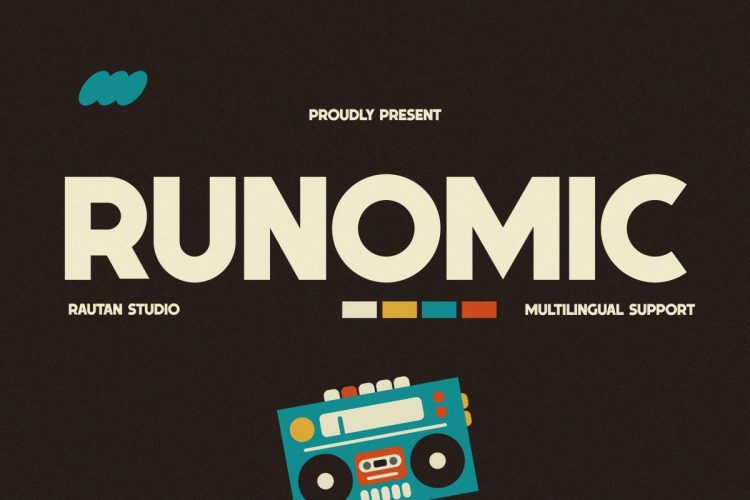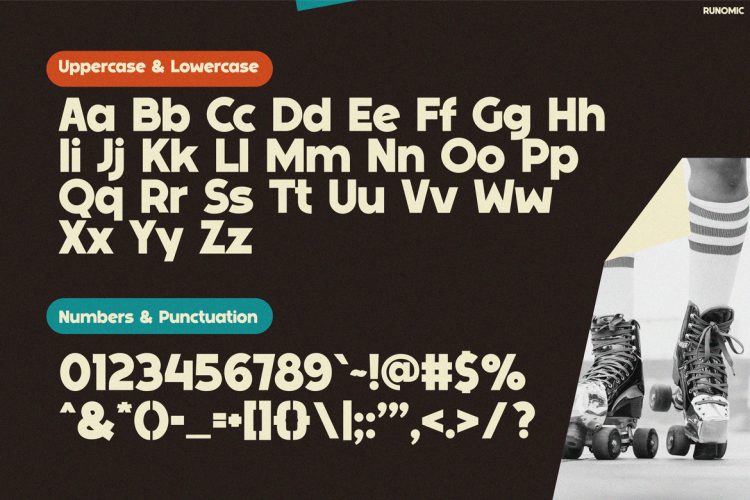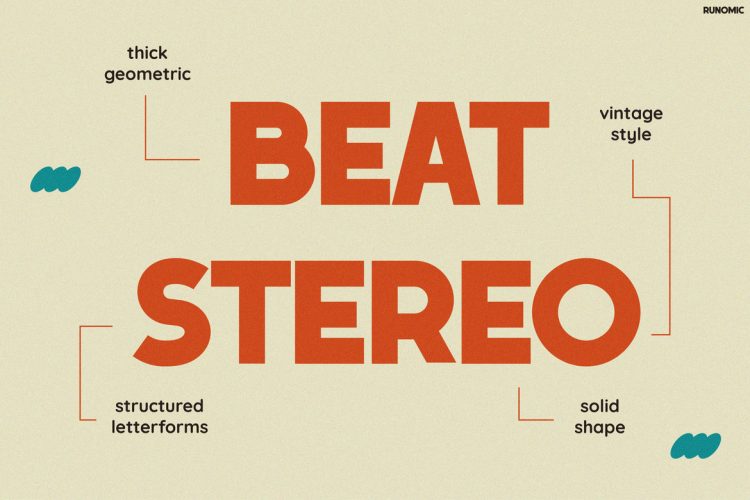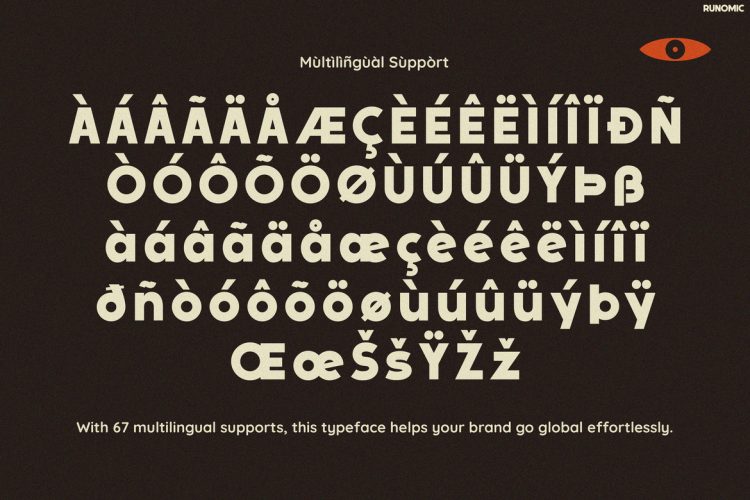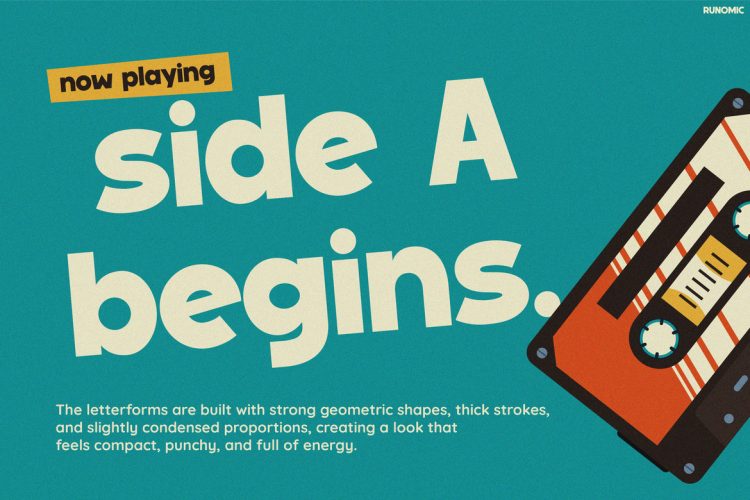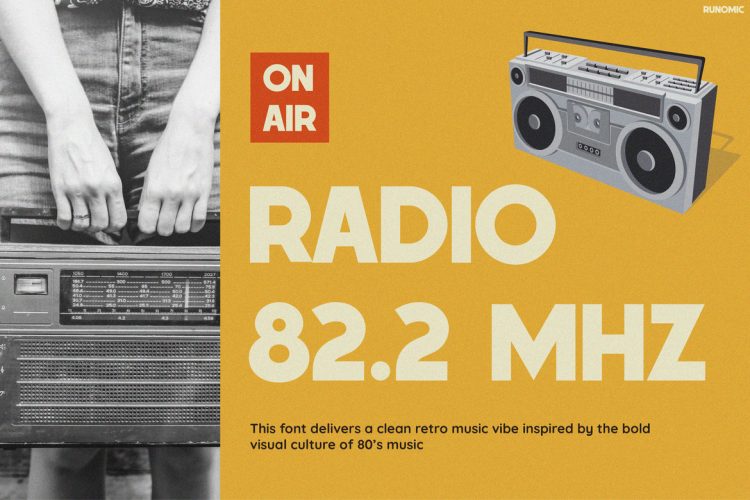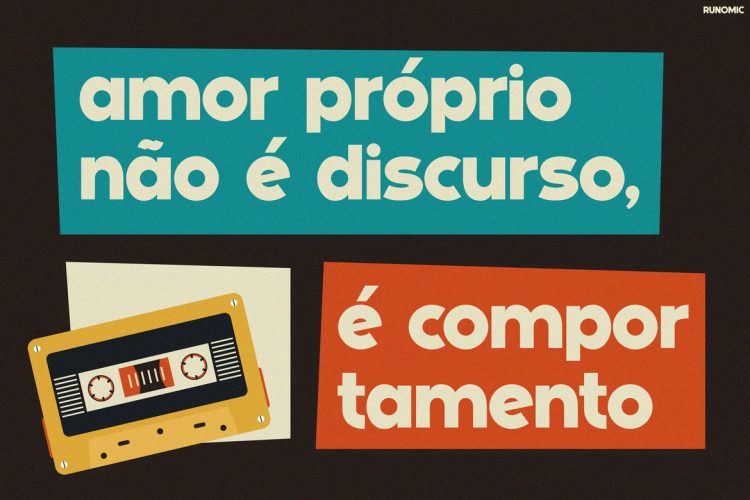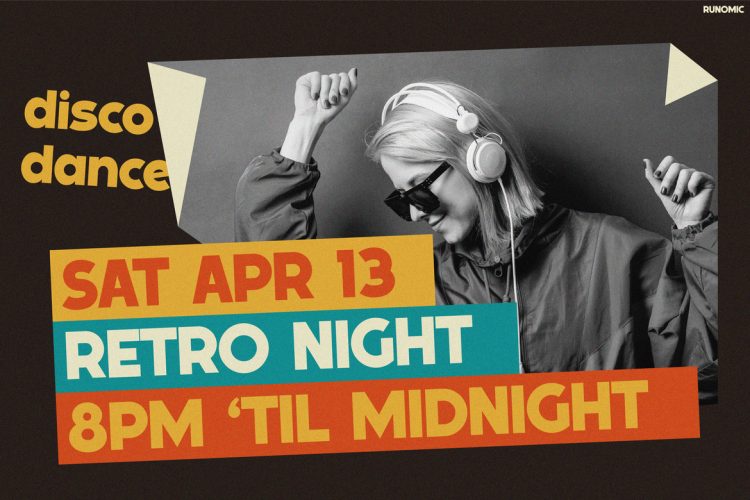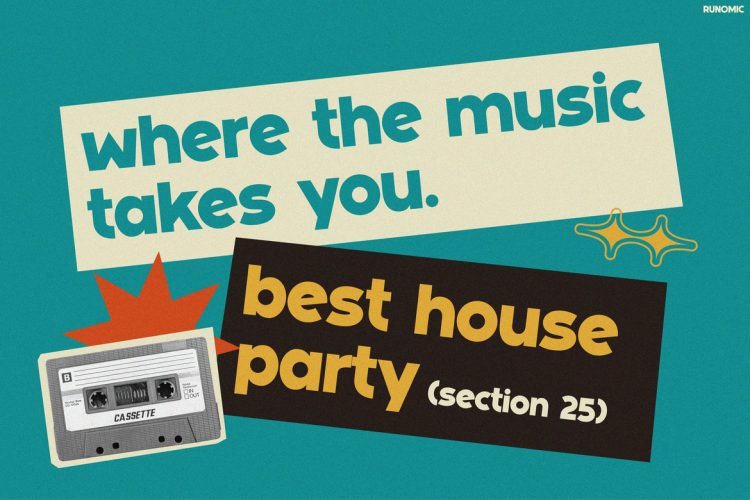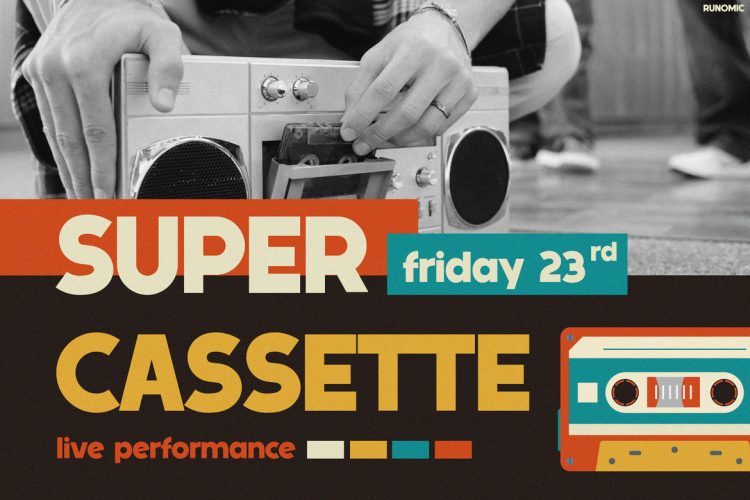
Runomic – Bold Retro Groove Font for Vintage Posters & Funky Headlines
Retro Font Runomic delivers bold retro energy with a playful vintage style. Inspired by cassette culture, disco posters, and classic radio graphics, this font instantly grabs attention. Moreover, its chunky shapes, smooth curves, and geometric structure create a strong visual impact. The bold style feels nostalgic yet modern. As a result, it becomes perfect for eye-catching typography. Runomic is designed to make headlines louder, warmer, and more memorable. In addition, it works beautifully for both print and digital projects. The font also supports 67 languages, allowing creators to reach global audiences with ease.
Why Retro Font Runomic Stands Out
Retro Font Runomic combines vintage charm with modern versatility. Not only does the thick display style keep every word clear and readable, but it also adds personality and artistic flair. Inspired by retro magazines, music posters, and old-school packaging, this font creates a timeless visual style. Furthermore, the design feels classic, stylish, and fresh in every layout. Because of its bold appearance, Runomic helps designers build stronger branding and more expressive visuals. Therefore, it becomes an excellent choice for creative projects that need instant attention.
- Music & Entertainment Projects
Perfect for album covers, party flyers, DJ branding, music festivals, and retro event posters. In particular, the bold shapes create energetic visuals that stand out quickly.
- Branding & Creative Business
Great for fashion brands, cafes, packaging, merchandise, YouTube thumbnails, and social media graphics. Meanwhile, Runomic adds a trendy retro vibe that makes branding feel more unique and memorable.
- Designers & Content Creators
Ideal for posters, magazine titles, stickers, templates, advertising, and creative typography projects. Additionally, the font helps every design look bold, stylish, and expressive.
Make Your Design Stand Out
Retro Font Runomic is more than a font. Instead, it is a bold visual statement filled with nostalgia and energy. Whether you want to create strong branding, retro promotions, or standout headlines, this typeface makes the process easier and more exciting. Most importantly, Runomic helps your projects feel fun, stylish, and unforgettable. Add this powerful retro font to your collection today and bring timeless retro character into every design.